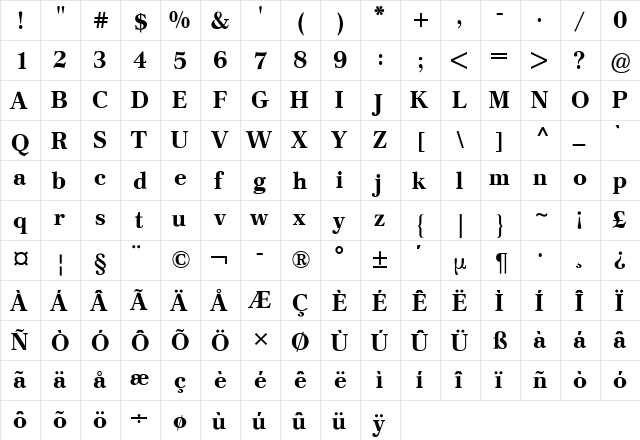
Cremona BQ Bold
Design Context for Cremona BQ Typeface
Cremona BQ offers clean, dependable letterforms without strong stylistic allegiance, making it a practical choice for designers who need flexibility. The heavy weight commands attention and anchors typographic hierarchies.